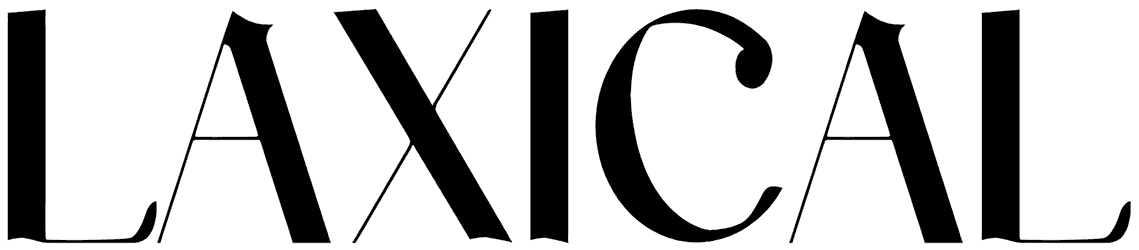
Laxical Font
Have a dry run in this Laxical font to beat the competition in typography design and enhance your creativity to think out of the box amazingly. This serif font with luxury style will bring to light many headlines due to its pure and standard face.
Not is no doubt, it would pull out all the stops in emphasizing many exhibitions, business cards, headers, apps, websites, and branding despite lacking lowercase letters.